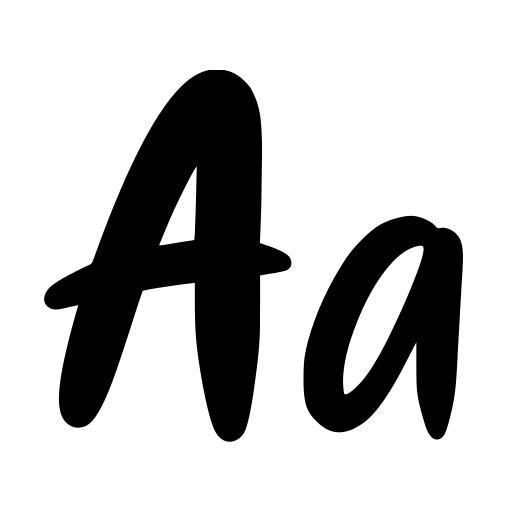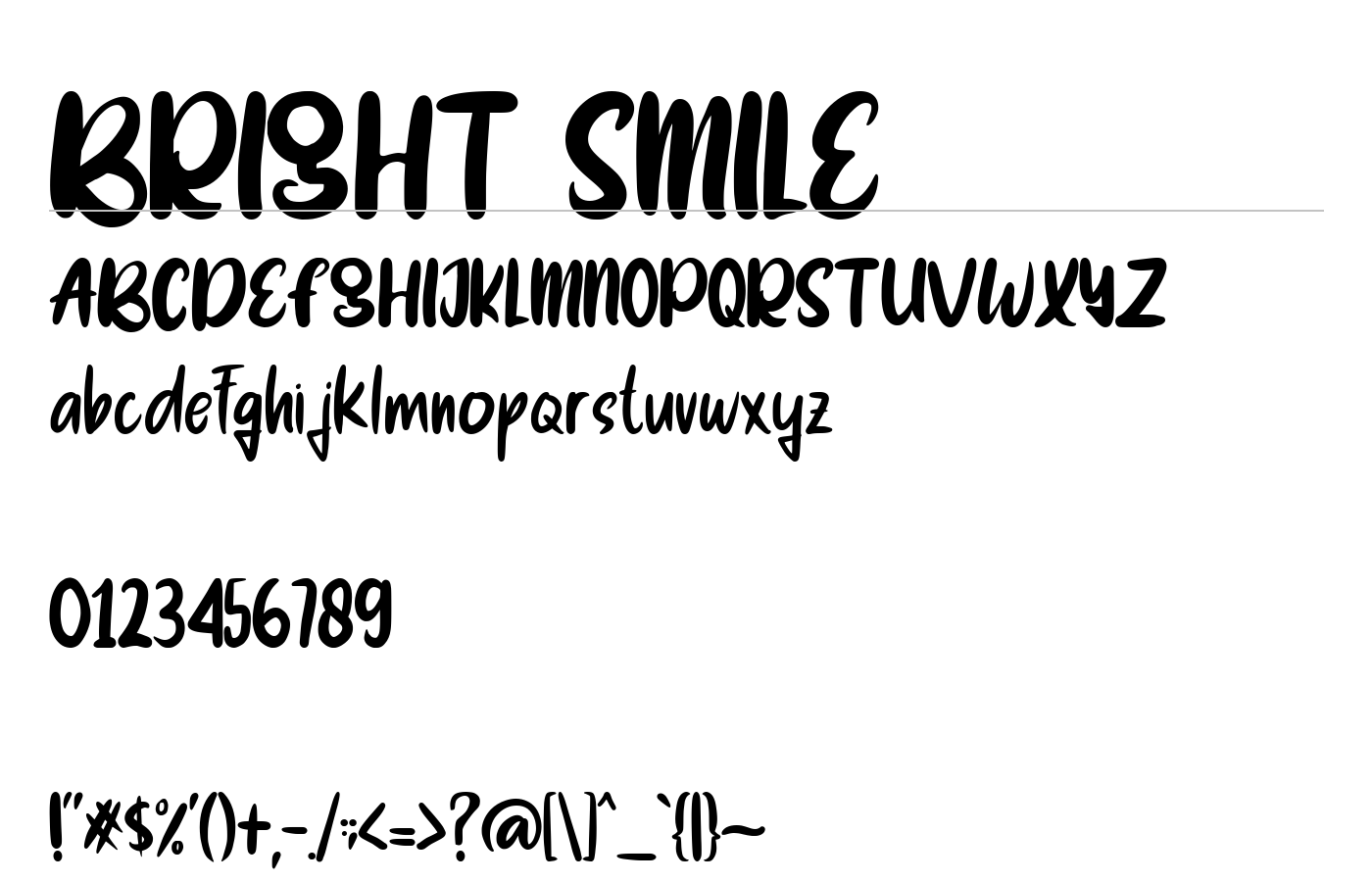
BRIGHT SMILE is a playful and casual handwritten script font with a bold weight and lively character shapes. It features a friendly, organic feel with smooth strokes and whimsical letterforms, making it perfect for projects that want to convey warmth, cheerfulness, and creativity. This font works well in branding, invitations, kids’ products, and fun headlines where a personal and approachable style is desired.
BRIGHT SMILE Font
About BRIGHT SMILE Font
| Font family | BRIGHT SMILE Font |
| Designer | Nomlimofont |